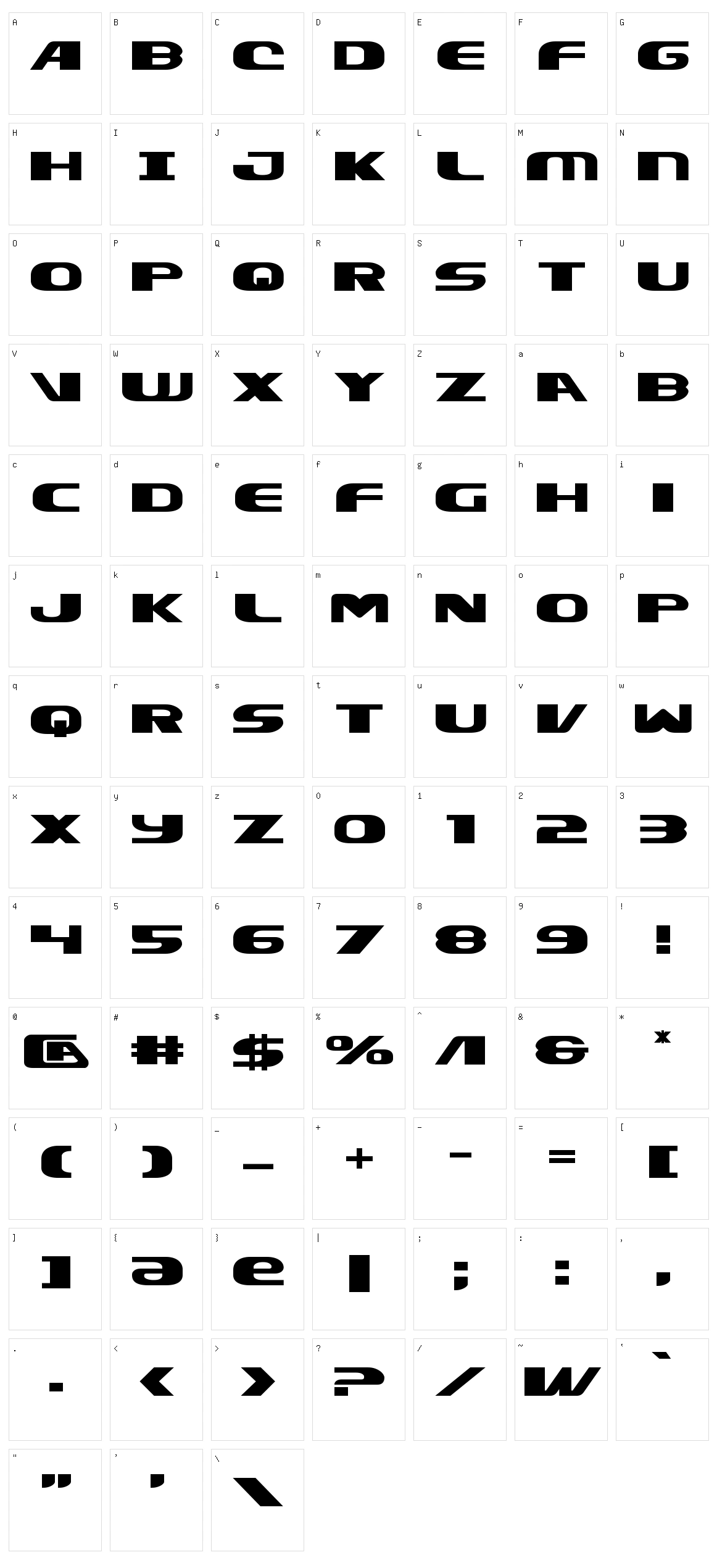
Xcelsion
This font comes with the following 26 versions: Regular, Italic, Semi-Italic, Leftalic, Condensed, Condensed Italic, Expanded, Expanded Italic, 3D, 3D Italic, Deep 3D, Deep 3D Italic, Gradient, Gradient Italic, Halftone, Halftone Italic, Laser, Laser Italic, Chrome, Chrome Italic, Engraved, Engraved Italic, Punch, Punch Italic, Title and Title Italic.